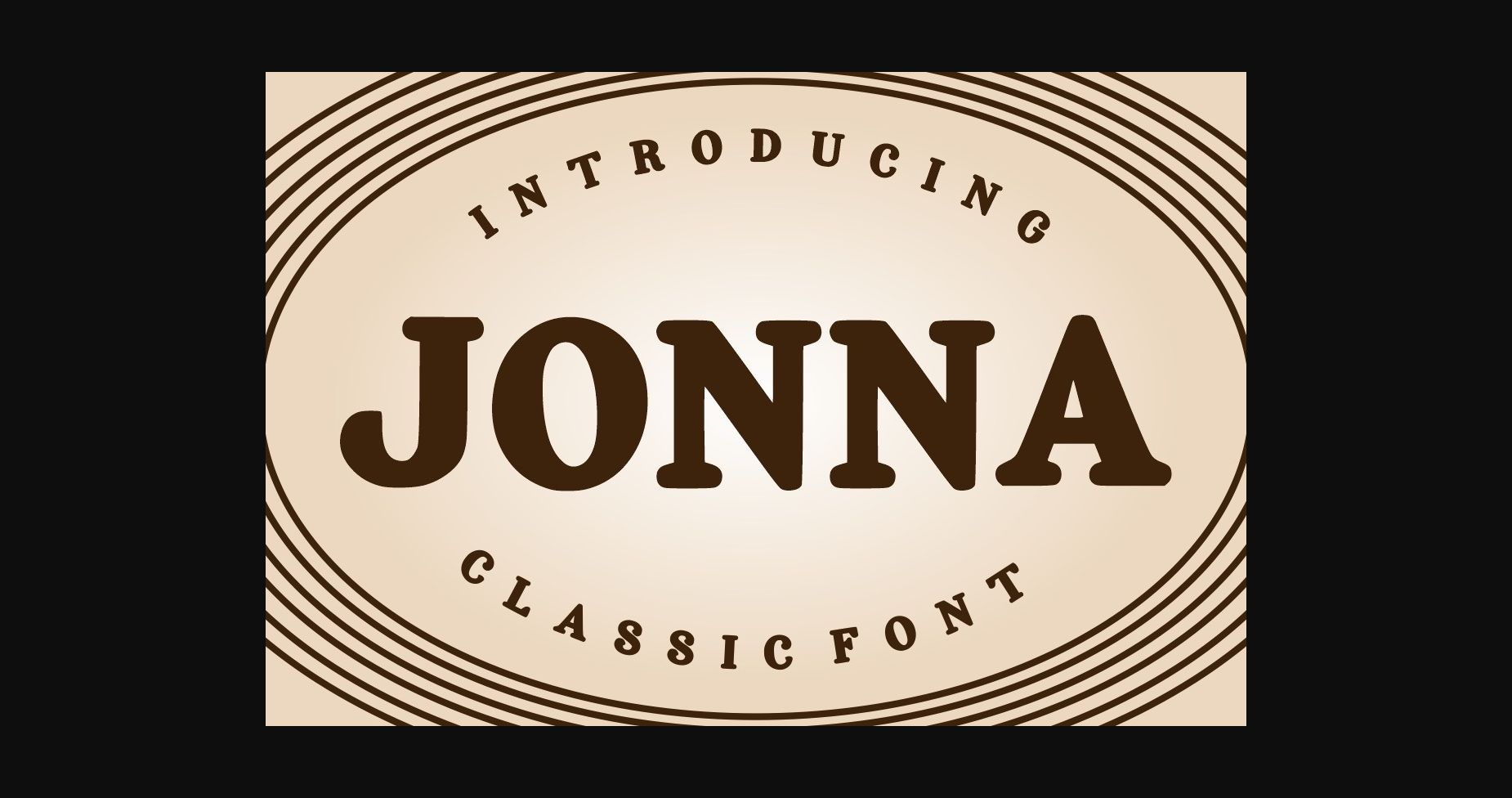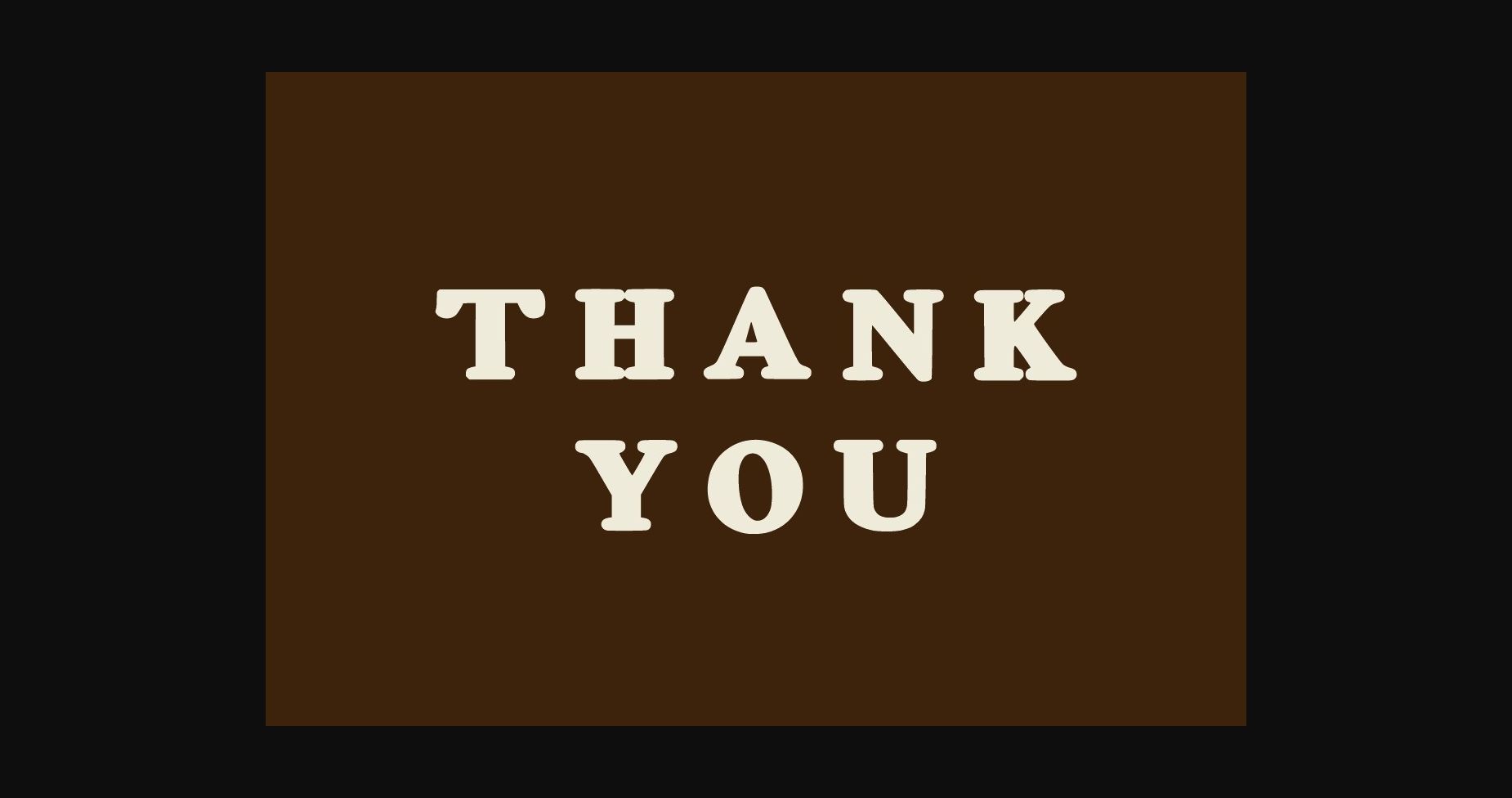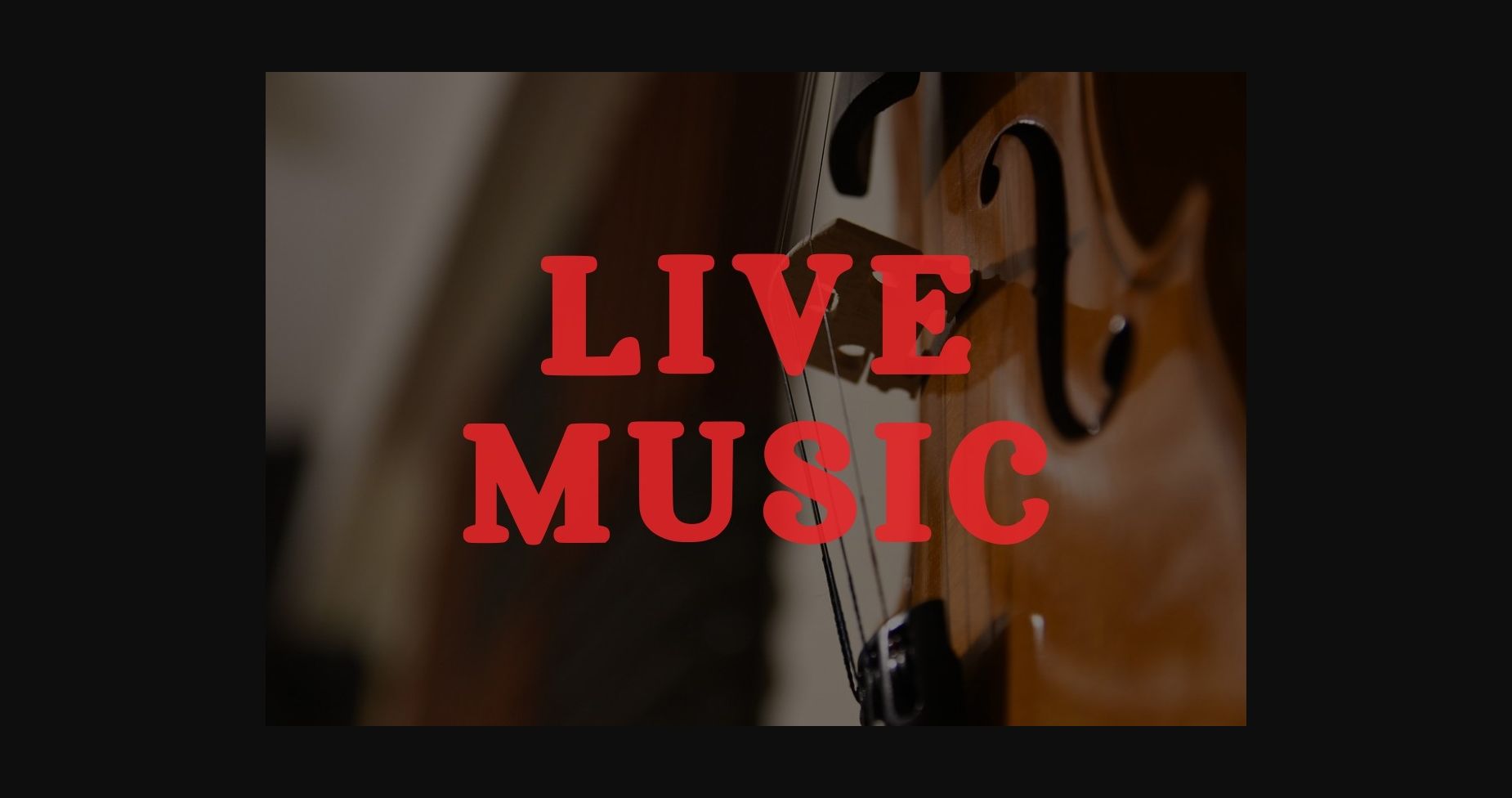
About Jonna Font
Jonna is a ctraditional sans serif font. Its classic & vintage feel will be a great addition to many projects. It is perfect for headlines, sporting events, text effects, posters, logos, or monogrammed designs.